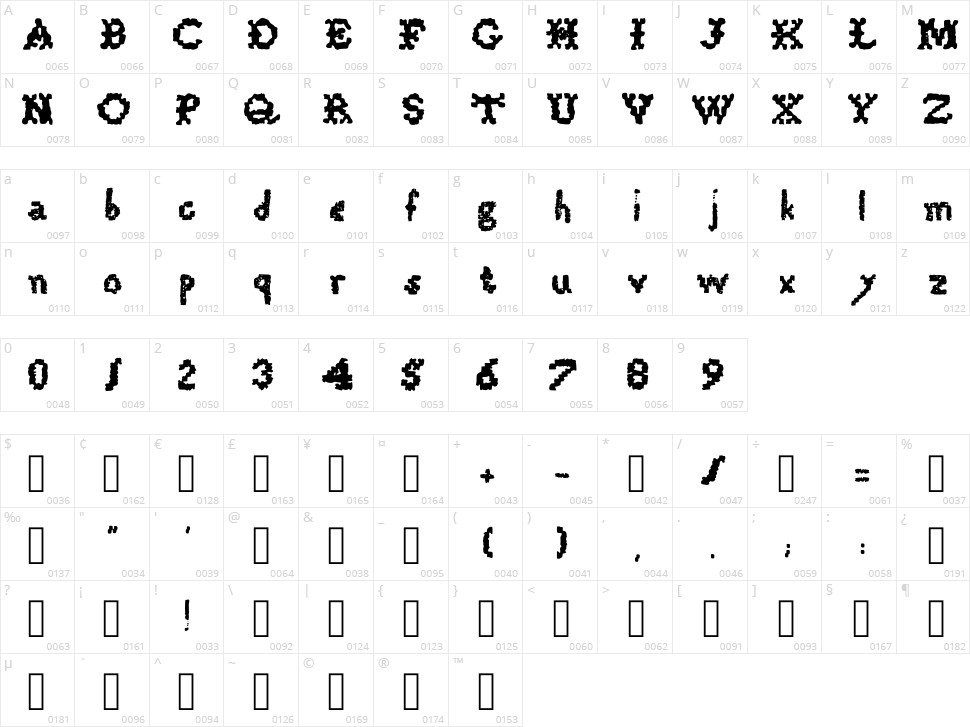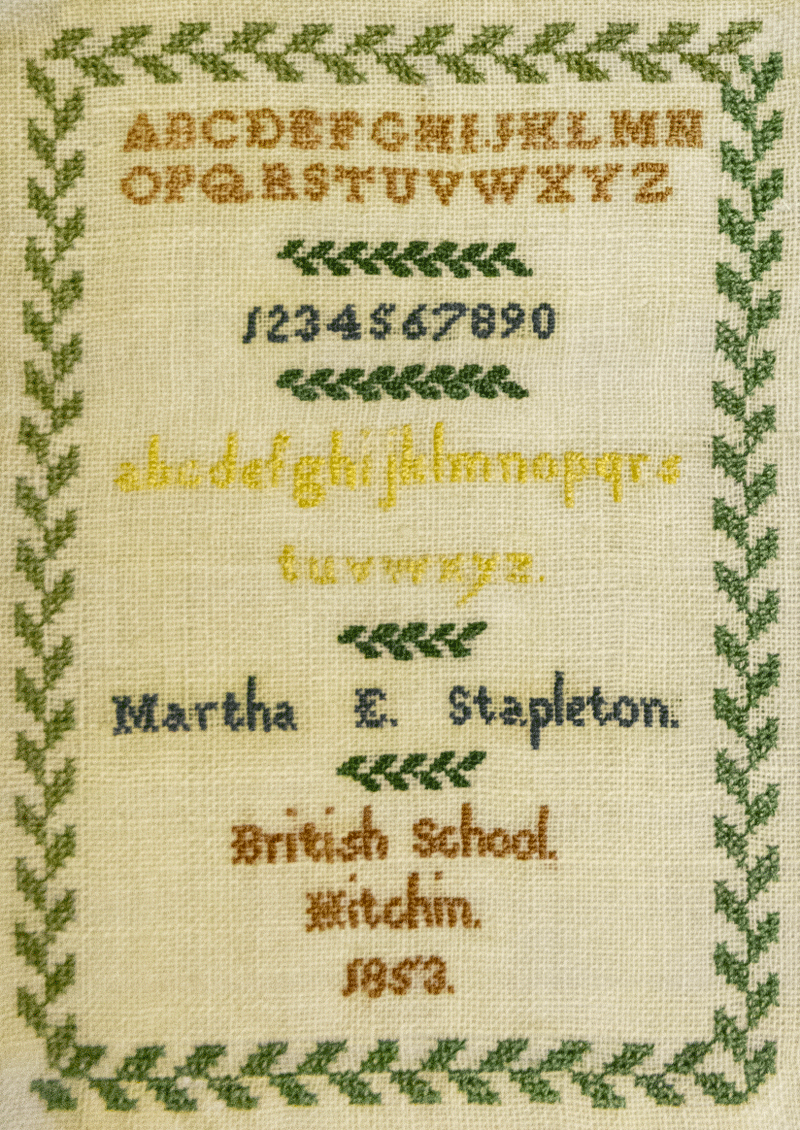
Martha Stapleton
This font has been created from Martha Stapleton's 1853 needlework sampler, created at the Girls' British School in Hitchin when she was only 12 years old.
It's great that her work lives on in the digital age.